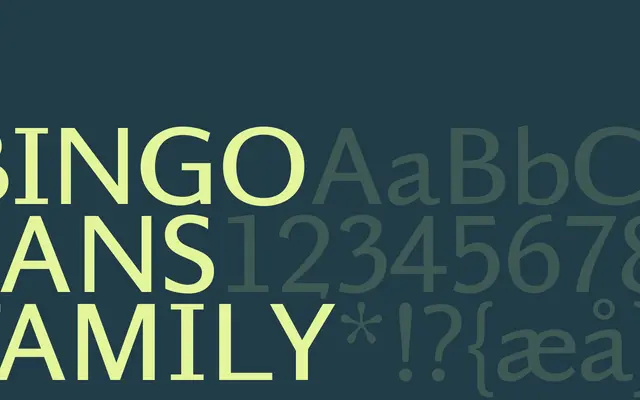
Bingo Sans specimen from Playtype
A humanist sans from Playtype with a characterful personality suited to editorial and identity work.
Bingo Sans is a humanist sans-serif from Copenhagen foundry Playtype. The foundry's copy uses a narrative of seduction and character to frame the typeface's personality, suggesting a warm and expressive voice rather than a neutral workhorse. Details on weights and language support are limited from available copy.
The name and brief copy suggest a warm, character-driven sans-serif; the humanist sans subcategory fits the implied personality and approachable tone described in the foundry copy.